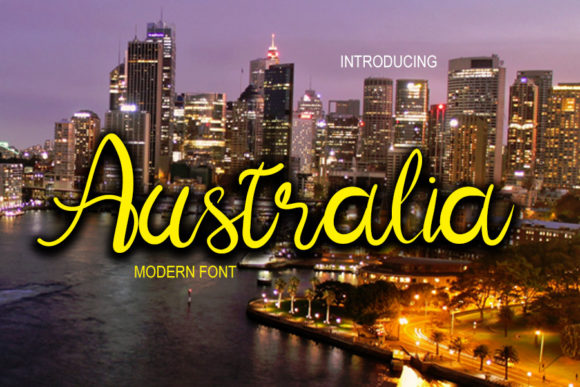
About Australia Font
Australia is a lovely and delicate script font that exudes elegance and class. This font was particularly crafted for those who need a beautiful and refreshing look to their designs.